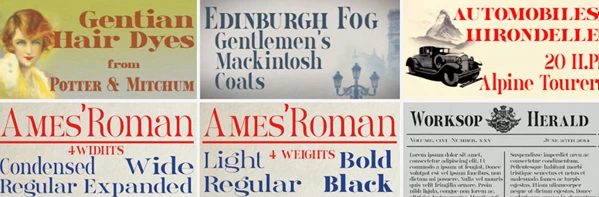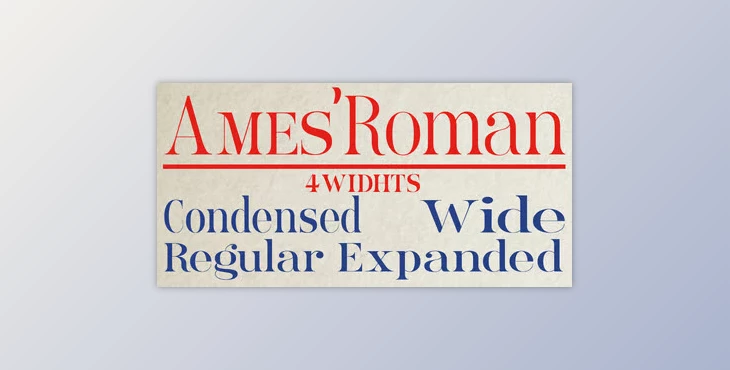
My Fonts - Ames Roman Font Family:
The Ames Roman Font Family is a New-Style Didone Roman font family with multiple weights and widths available. It is designed for clarity and ideal for achieving a striking contrast between horizontal and vertical strokes. All typefaces include small caps and new/old-style numerals for consistency, and small-cap numerals are also included.
Ames Roman is a perfect balance of old-fashioned Roman fonts with a contemporary twist, making it ideal for creating respectable, easily legible headings and titles. Expect the best from this font family and look forward to the upcoming Ames Text!